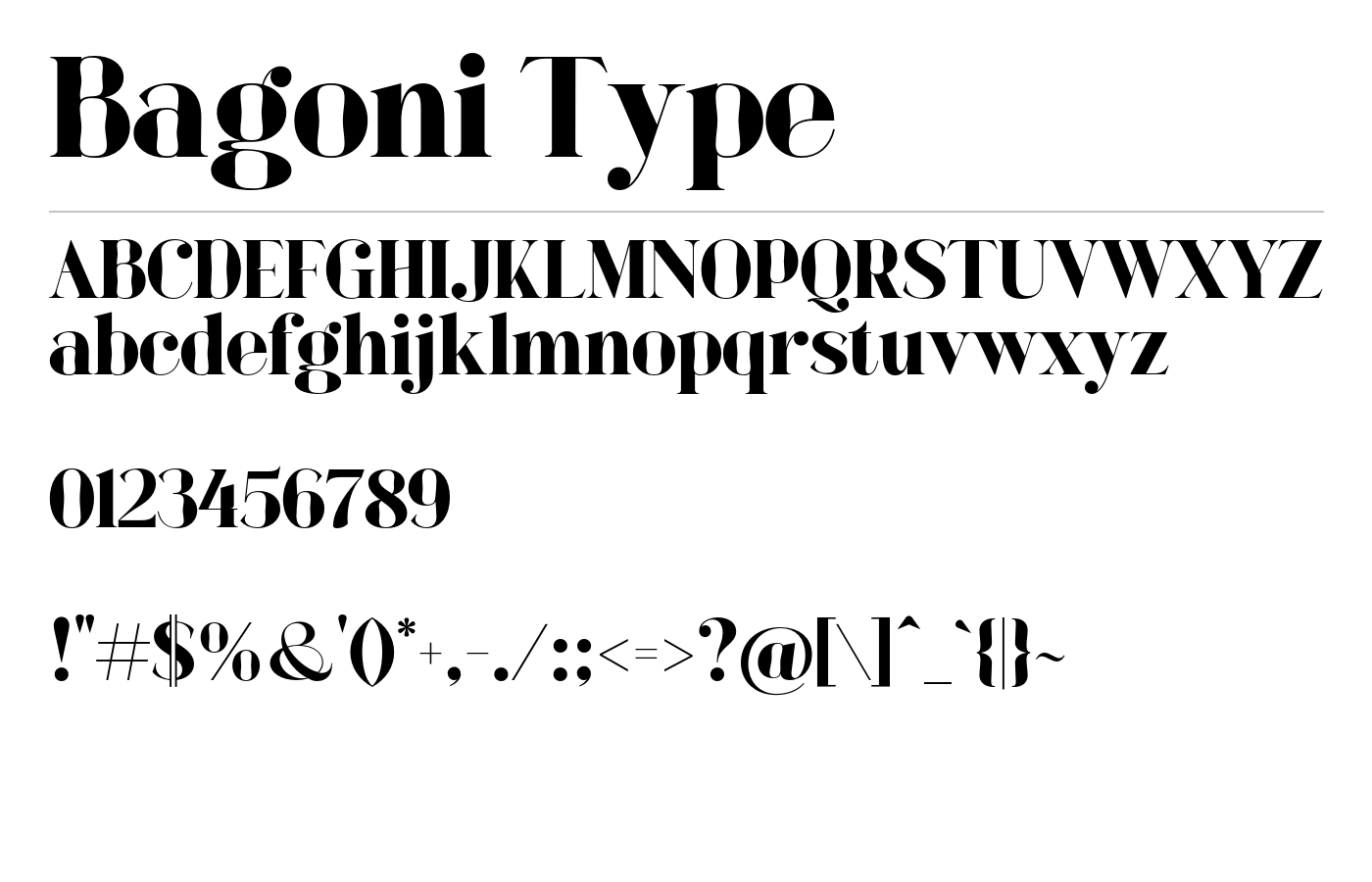
Bagoni Type is a striking serif font with a high contrast between thick and thin strokes, featuring elegant, sharp serifs and a condensed structure that creates a sophisticated and modern look. Its unique letterforms, including distinct terminals and refined curves, convey a luxurious yet contemporary style, making it ideal for fashion branding, editorial headlines, and stylish packaging. This font works best where a bold, classy presence is needed to capture attention and communicate elegance with a modern twist.
Bagoni Type Font
About Bagoni Type Font
| Font family | Bagoni Type Font |
| Designer | Muammar Kadafi |